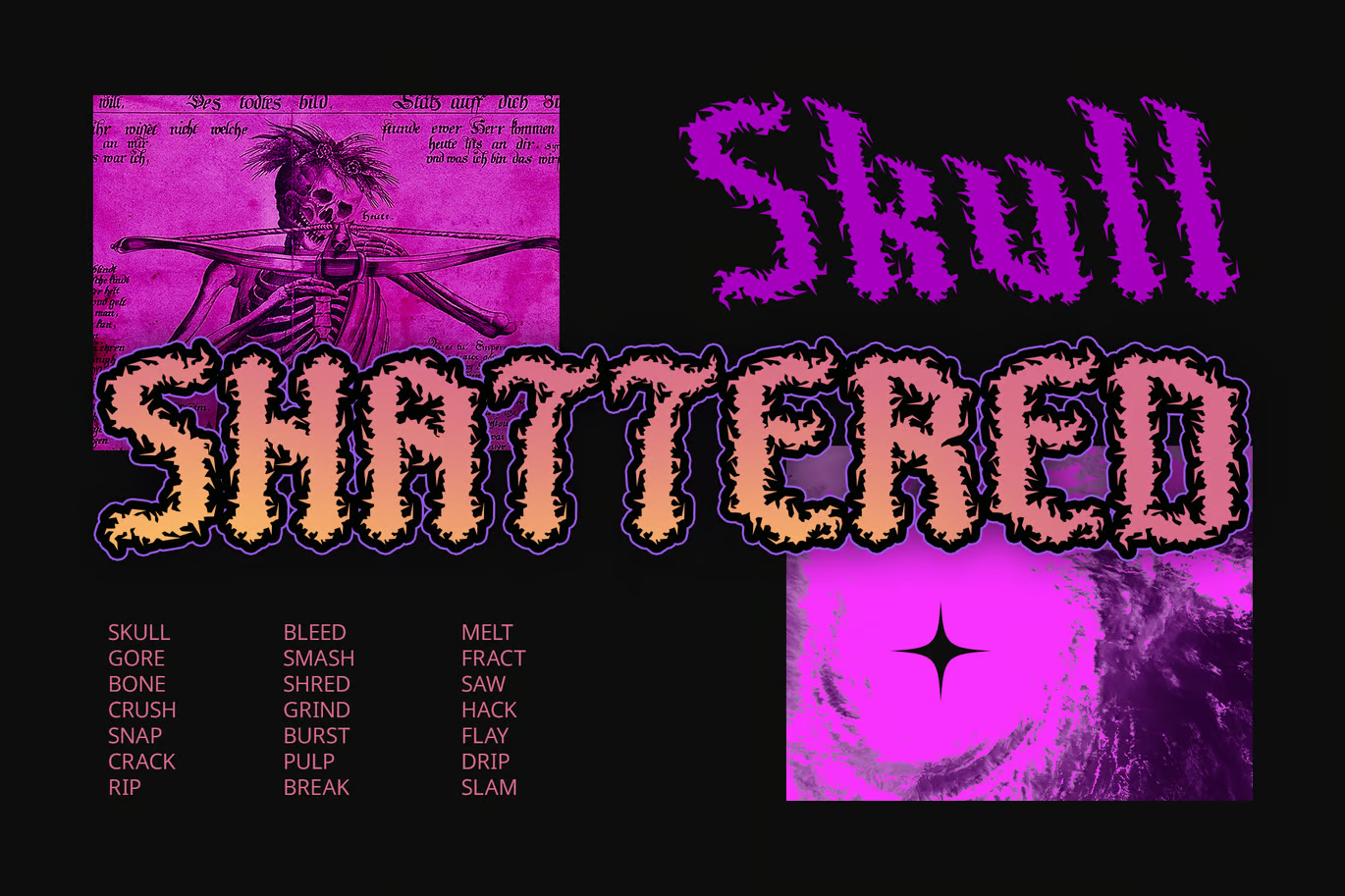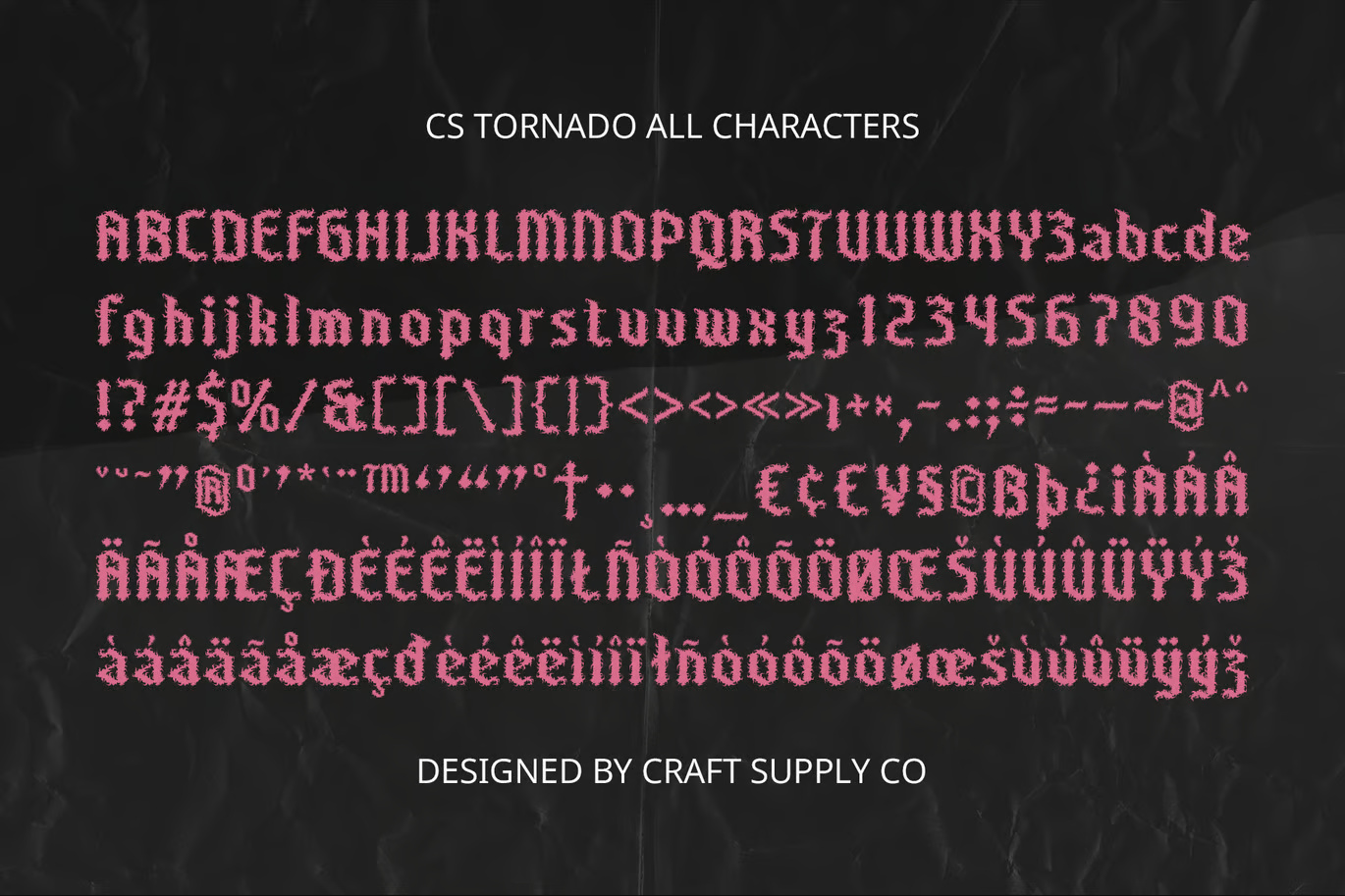
CS Tornado – Black Metal Font: Unleash the Chaos
Extreme Black Metal Display Font CS Tornado is a Black Metal display font crafted to embody the raw intensity, darkness, and brutality of extreme metal aesthetics. With sharp, jagged letterforms, chaotic textures, and aggressive strokes, this font captures the untamed energy and mysticism of underground metal culture. Its distorted yet intricate details create a striking visual identity, making it the perfect choice for dark and rebellious design projects that demand a powerful and unforgettable presence.
Inspired by the brutality and extreme nature of Black Metal visuals, CS Tornado features spiked, thorn-like structures, uneven strokes, and warped edges that reflect the raw essence of the genre. The aggressive and chaotic design mirrors the raw energy of metal music, creating a typeface that is bold, rebellious, and completely uncompromising.
With its unforgiving and chaotic appearance, CS Tornado is the perfect fit for horror-themed posters, occult-inspired artwork, and extreme branding. The distorted and almost unreadable letterforms enhance the mysterious and eerie atmosphere, making it an excellent choice for gothic, dark fantasy, and experimental designs.
Tornado Black Metal Decorative Font